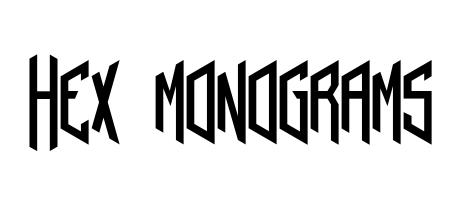
Hex
By Pilaster Davy
Hex Monograms is a bold, edgy display typeface. Its sharp, angular serifs and condensed letterforms project a powerful, almost aggressive feel. The letters are tightly packed, creating a sense of intensity and immediacy, suitable for branding that seeks to convey strength and authority. The overall style is reminiscent of gothic or blackletter fonts, modernized for a contemporary aesthetic.